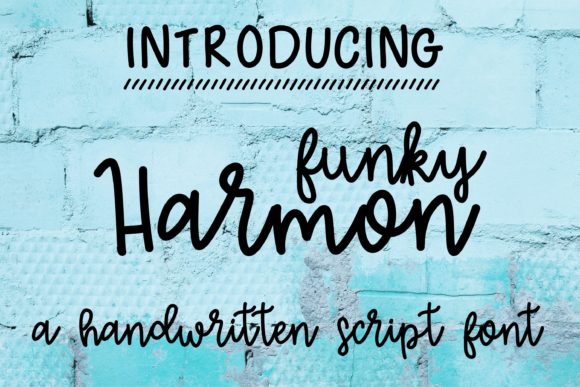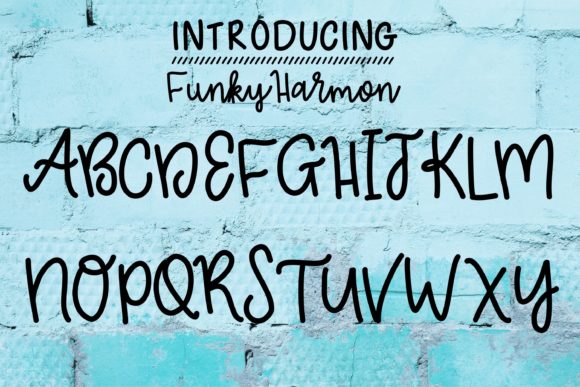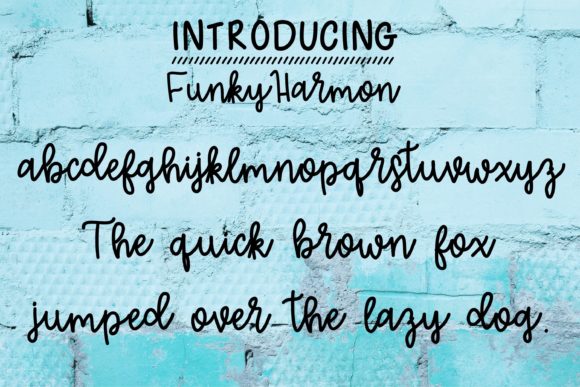
Funky Harmon Font
About Funky Harmon Font
Funky Harmon is a handwritten script font that brings character and playfulness to any design. This font will make your text stand out from the crowd!